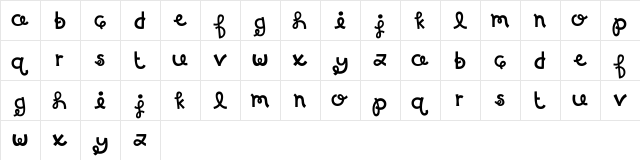
MTF Birthday Bash Regular
Design Context for MTF Birthday Bash Typeface
MTF Birthday Bash is a composed and adaptable typeface that performs quietly and consistently across a wide range of design contexts.